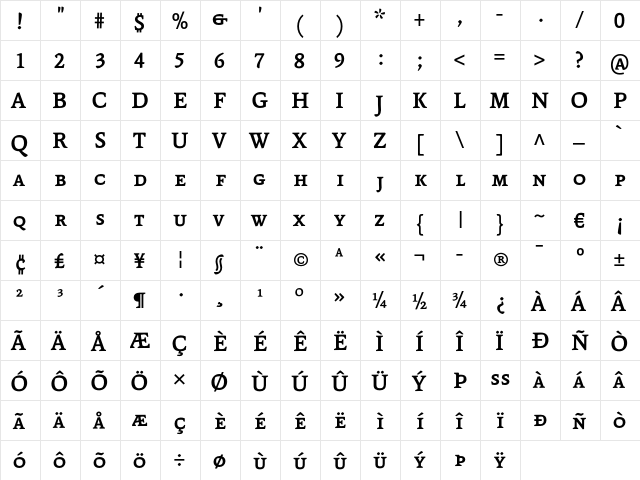
Andralis ND SC Bold
Design Context for Andralis ND SC Typeface
Andralis ND SC is a composed and adaptable typeface that performs quietly and consistently across a wide range of design contexts. The heavy weight commands attention and anchors typographic hierarchies.